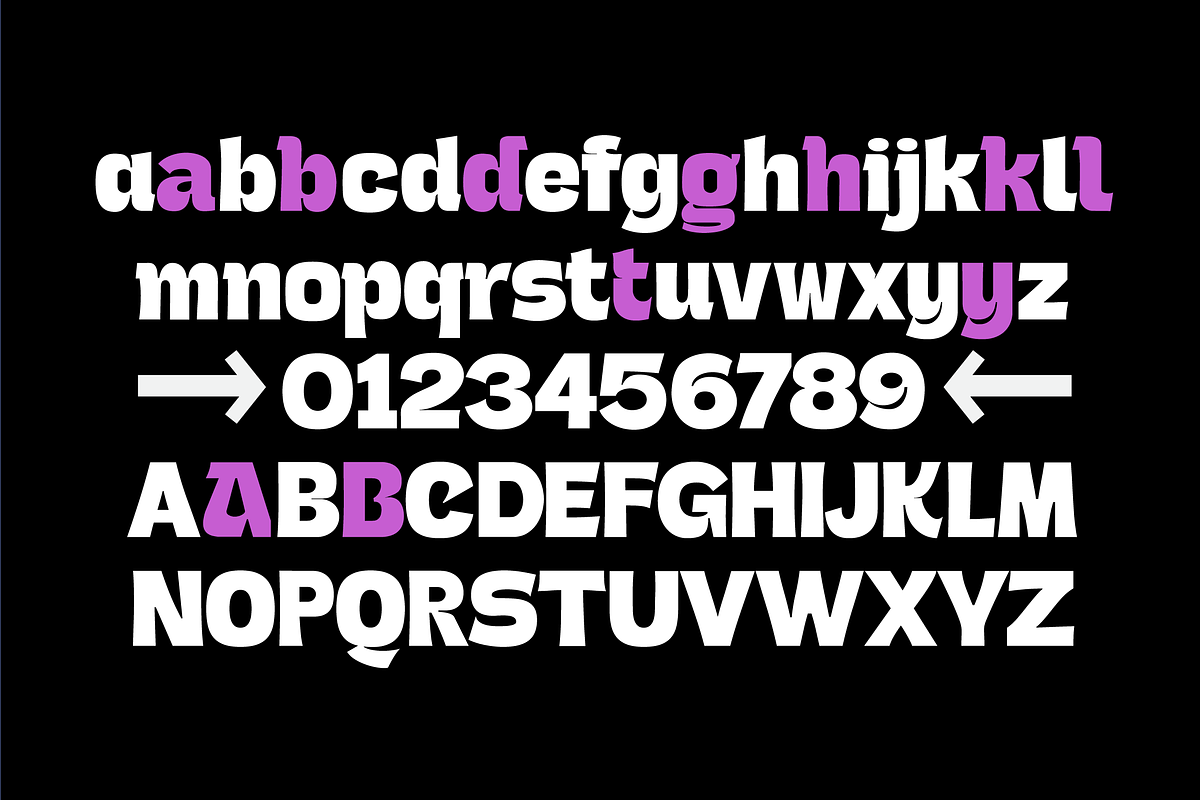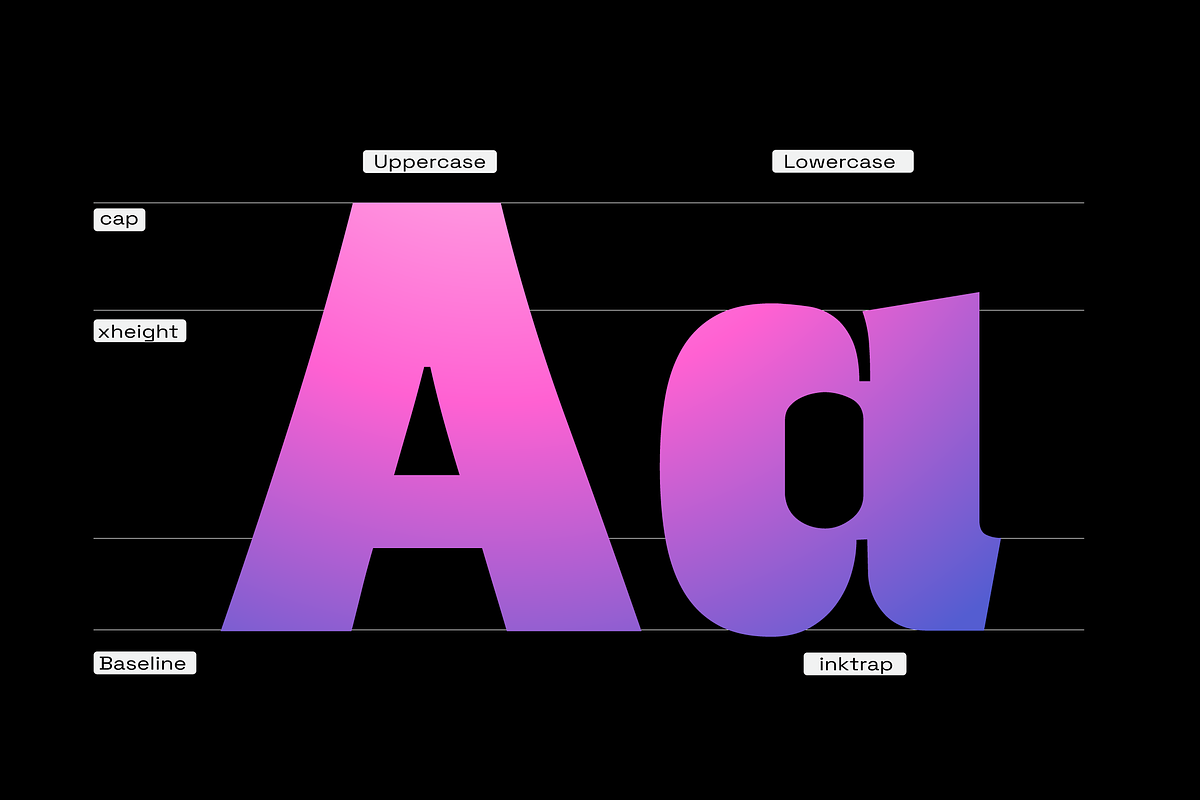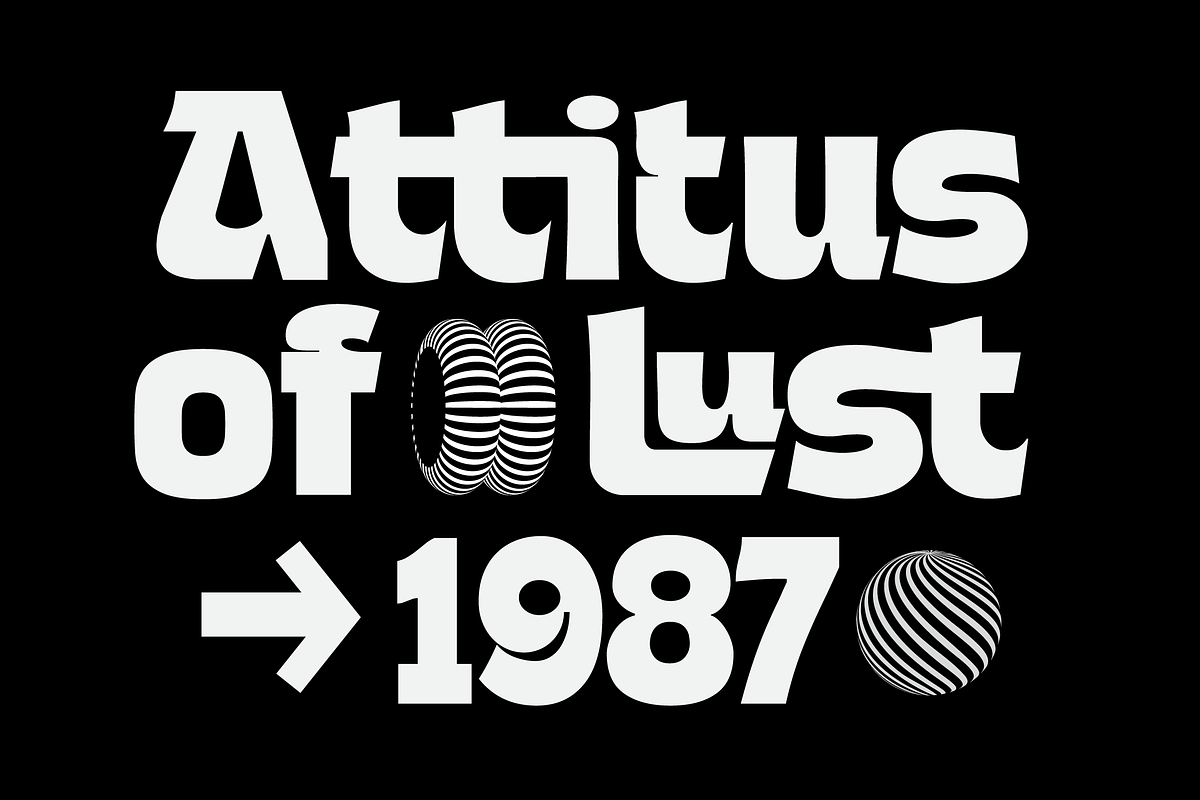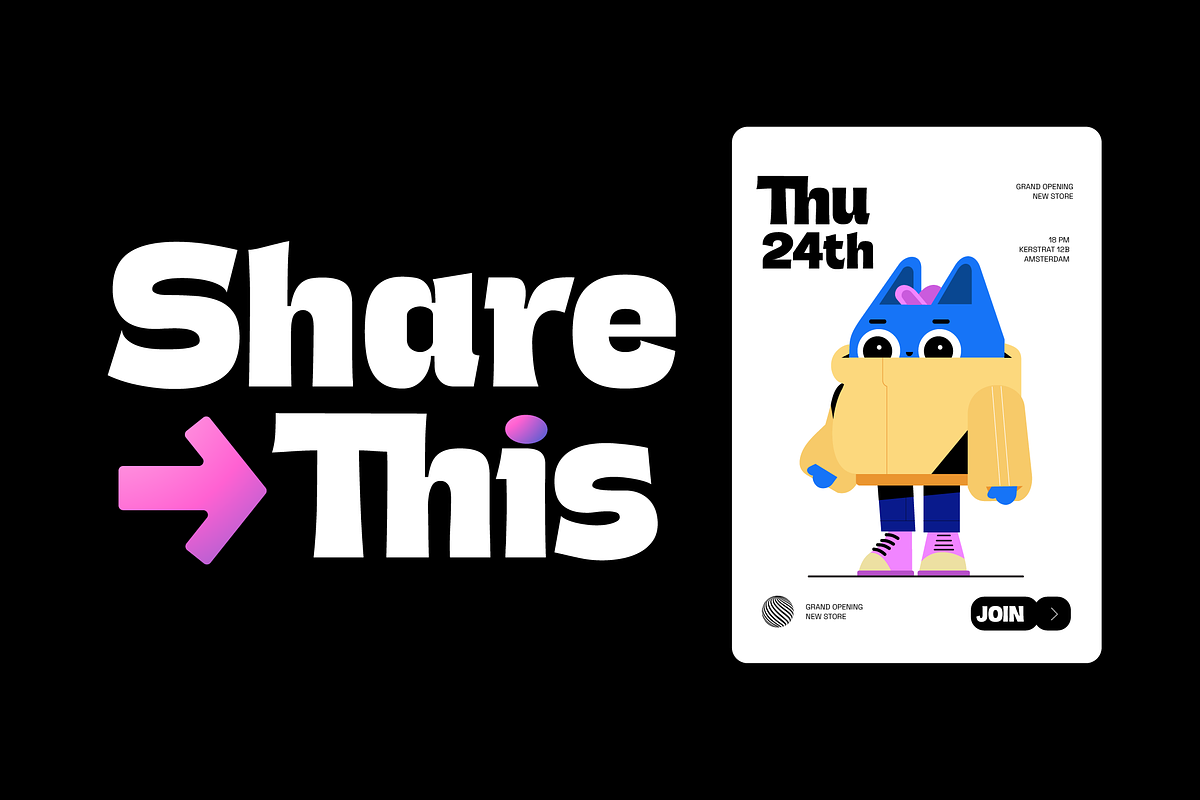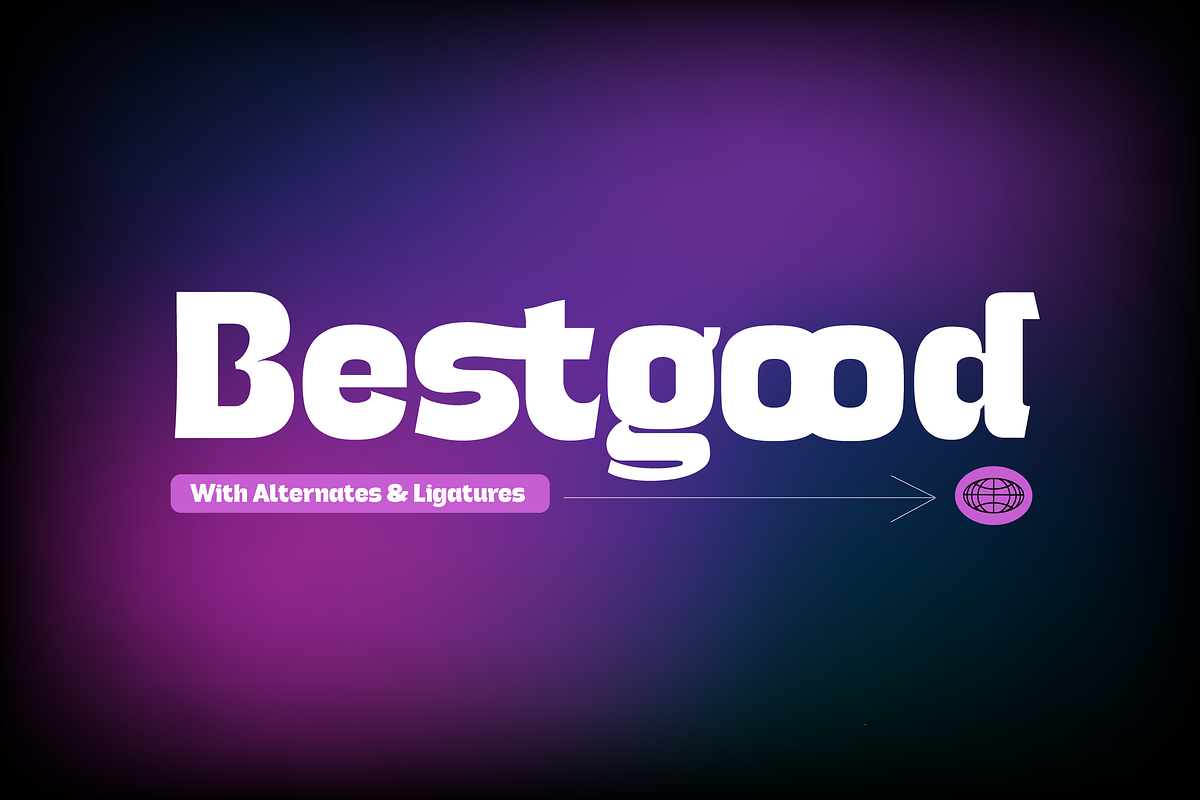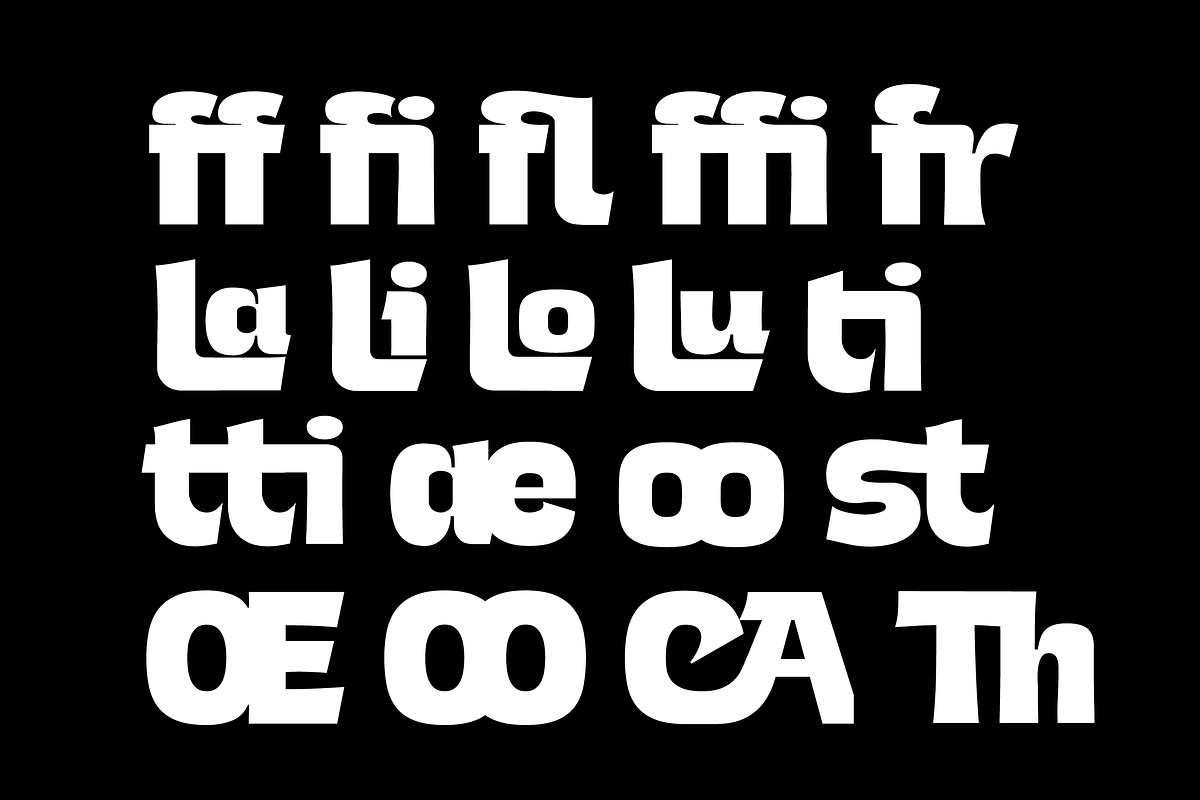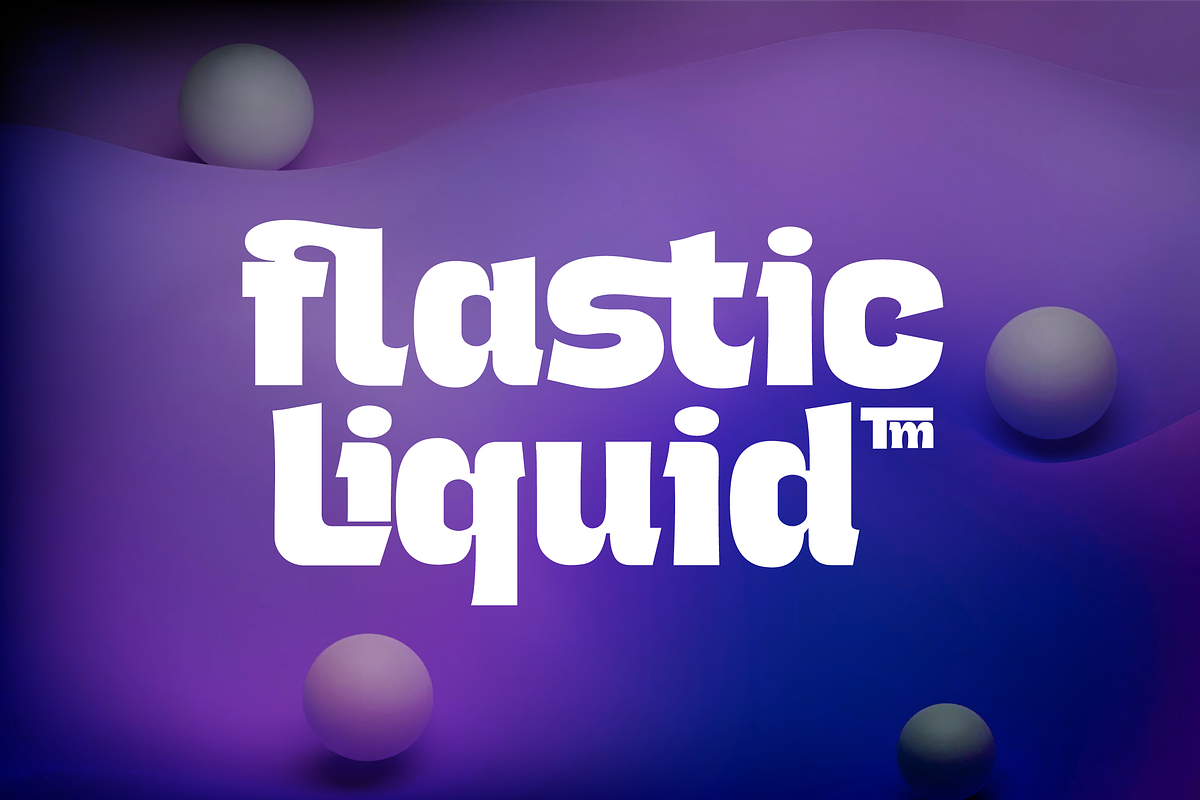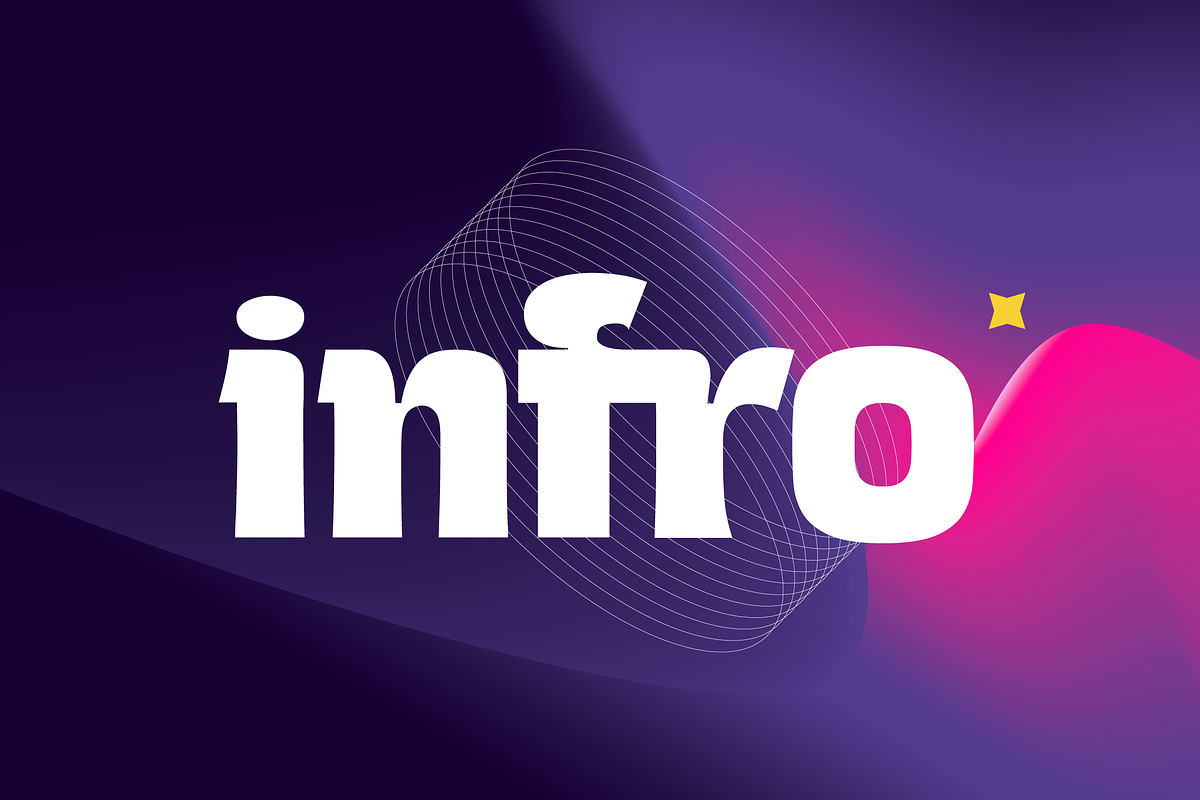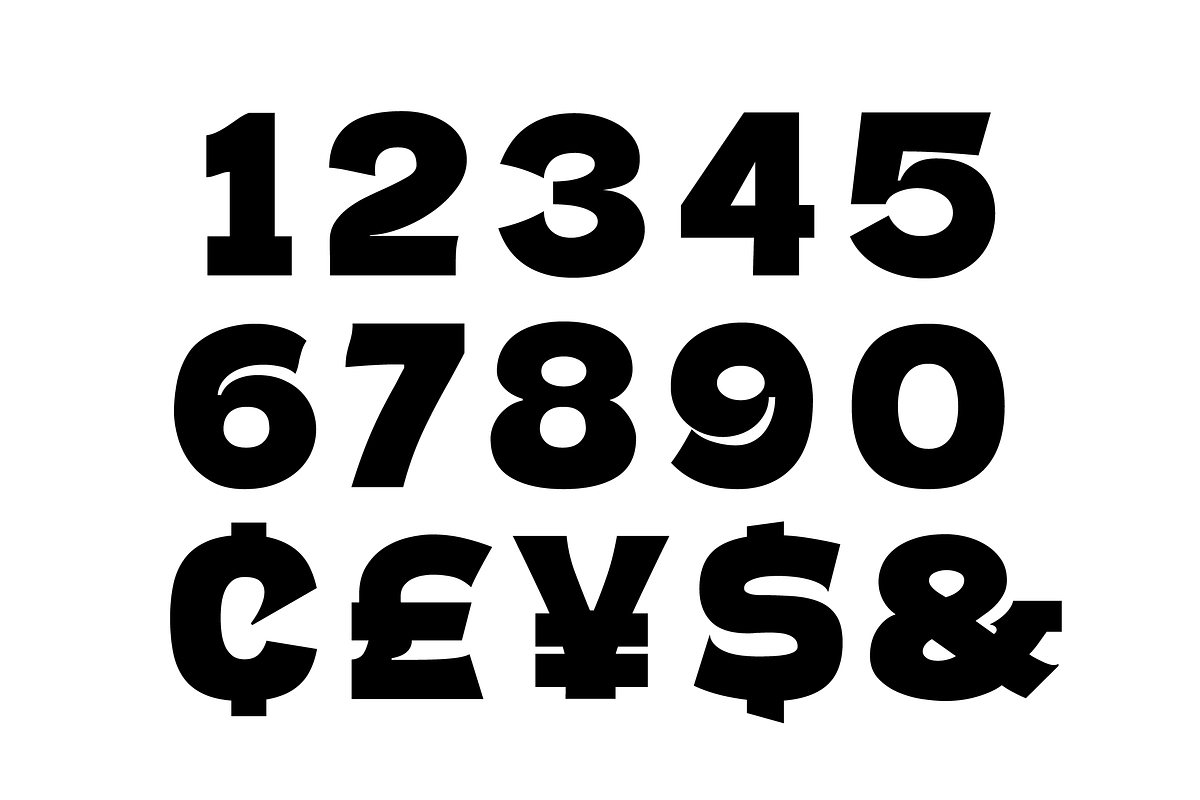
Infro – Bold Modern Inktrap
Infro – Bold Modern Inktrap Serif with a Futuristic Touch
Infro is a bold, modern serif typeface designed for impactful headlines and branding. With its strong geometric structure, smooth curves, and subtle ink trap details, this font blends retro aesthetics with a futuristic edge. The thick strokes ensure high readability, while the playful, slightly exaggerated letterforms add a dynamic and energetic feel.